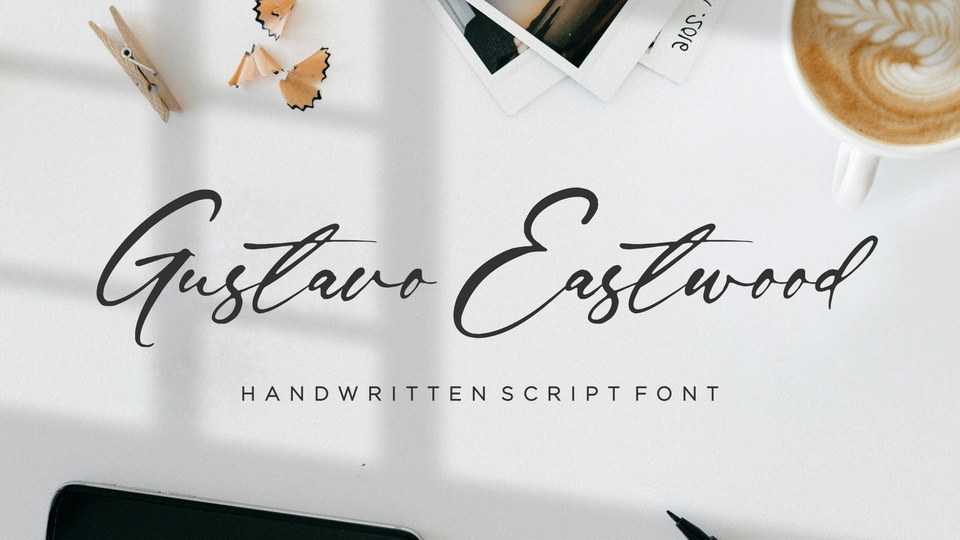
Download Gustavo Eastwood font, a beautiful and refined script font. Gustavo Eastwood font has a classy, elegant and modern look that can be used for logos, branding, invitations, stationery, wedding designs, social media posts, and much more.